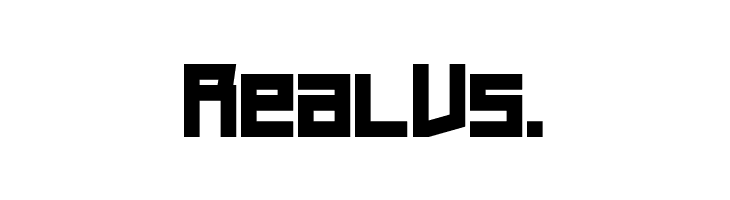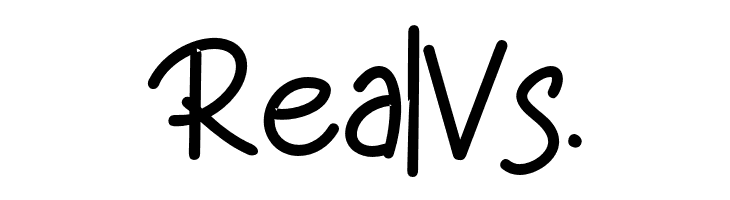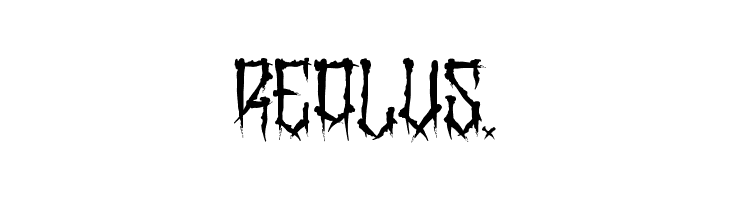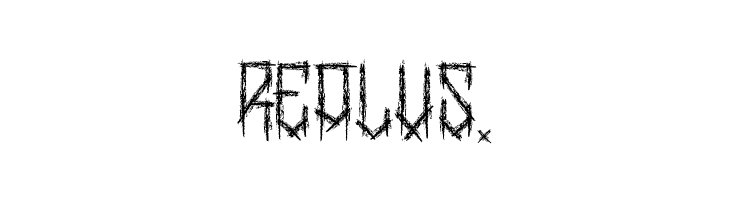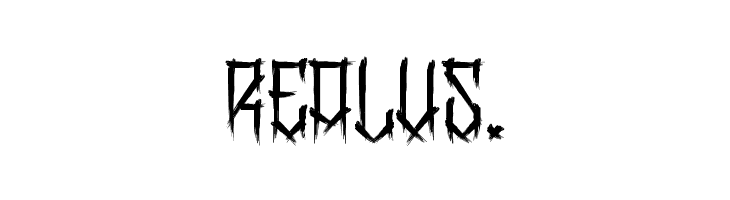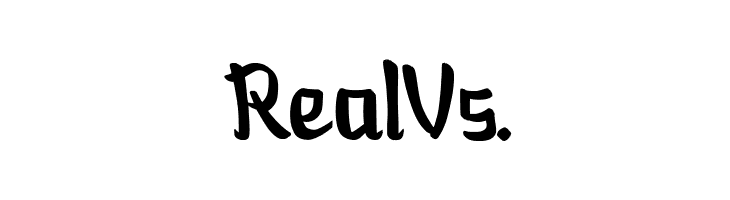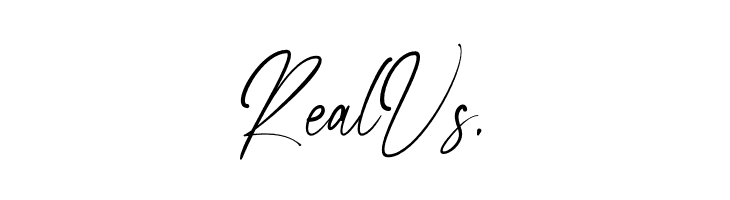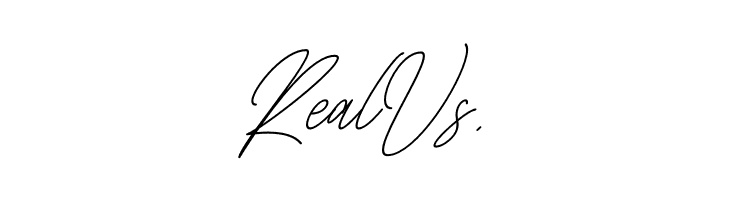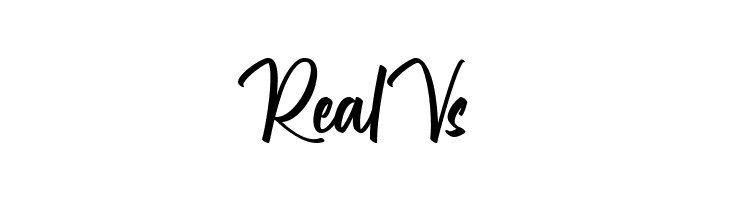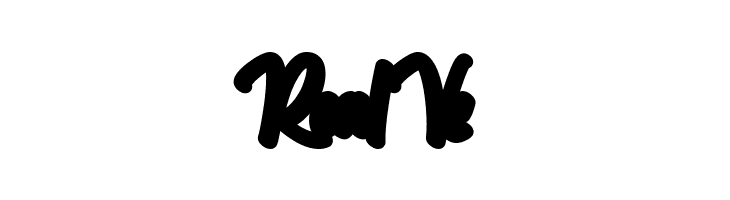
A bold, italicized font with a dynamic and energetic style.
A playful, handwritten font with a casual and whimsical style.
A bold, decorative font with a vintage, circus-like style.
A bold, playful handwritten font with rounded, smooth letterforms.
A bold, playful handwritten font with a casual and lively style.
A playful, bold handwritten font with rounded, informal letterforms.
A playful brush-style font with bold, dynamic strokes and a hand-painted appearance.
A bold, cursive font with a dynamic and flowing style.
A bold, slanted, and energetic font with a playful style.
A modern, elegant font with thin, elongated letterforms and high contrast strokes.
A decorative font with intricate swirls and flourishes, perfect for artistic projects.
An elegant script font with smooth, flowing lines and a sophisticated appearance.
A playful, casual script font with smooth curves and rounded edges.
A modern, high-contrast font with artistic, elongated characters.
A dynamic, cursive font with fluid strokes and a handwritten style.
A monoline, slanted script font with an elegant and fluid style.
A sophisticated cursive script with elegant, flowing lines and ornate flourishes.
A jagged, horror-themed font with sharp, irregular edges.
A jagged, horror-themed font with a scratchy, distressed appearance.
A jagged, horror-themed font with sharp, irregular strokes.
A decorative and vintage-style font with ornate uppercase letters and complementary lowercase characters.
A bold, decorative font with intricate details and ornate flair.
A distressed, textured font with a grungy, hand-drawn style.
A bold, distressed font with a grunge, hand-painted style.
A modern, geometric font with clean lines and consistent stroke width.
A graceful script font with flowing, cursive letters and elegant flourishes.
A lively and elegant script font with flowing, cursive letterforms.
A bold, hand-drawn font with dynamic strokes and an artistic flair.
A retro-style font with tall, narrow characters and sharp angles.
A bold, playful script font with interconnected letters and a casual, handwritten feel.
A dynamic script font with elegant, flowing strokes and a modern calligraphic style.
A bold, geometric font with a strong, blocky appearance.
A bold, geometric font with angular shapes and a futuristic aesthetic.
A lively and expressive handwritten font with fluid strokes and playful elegance.
A dynamic and playful handwritten font with fluid strokes.